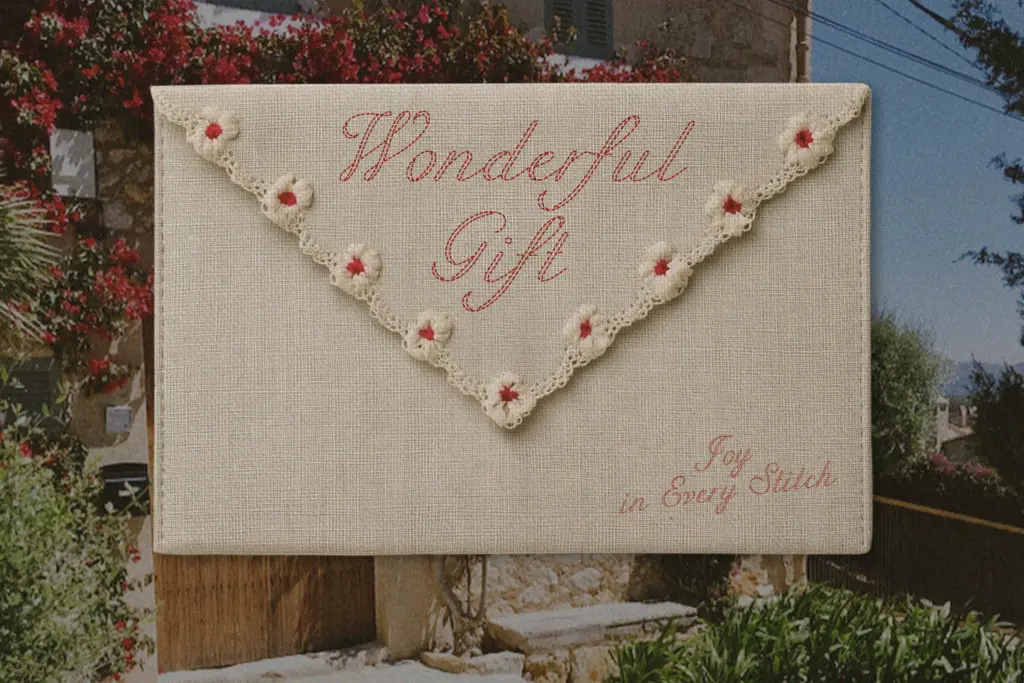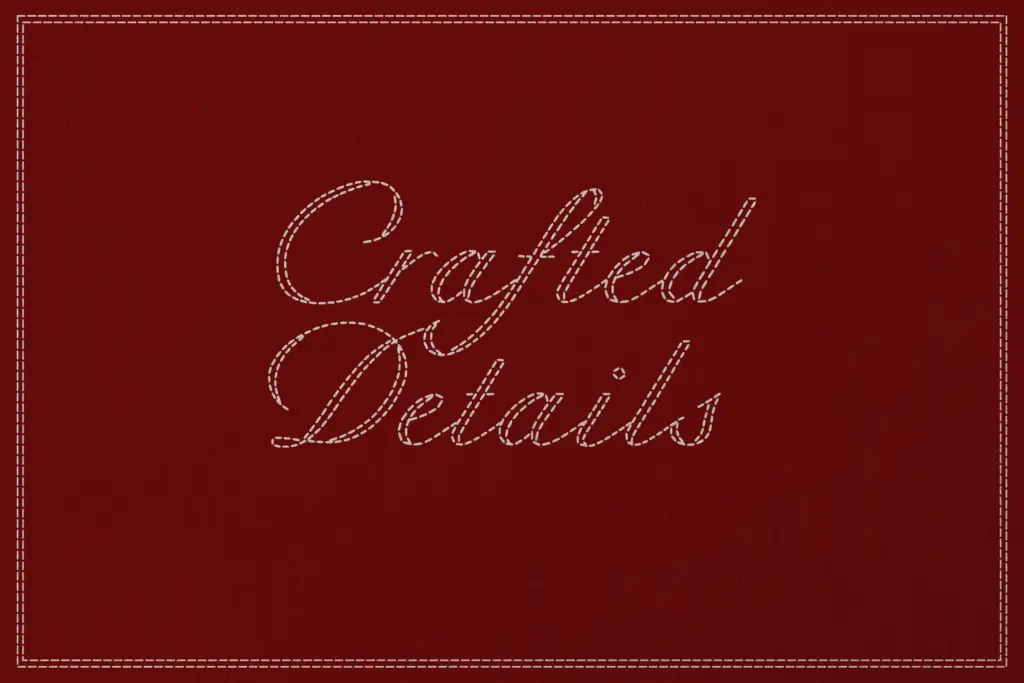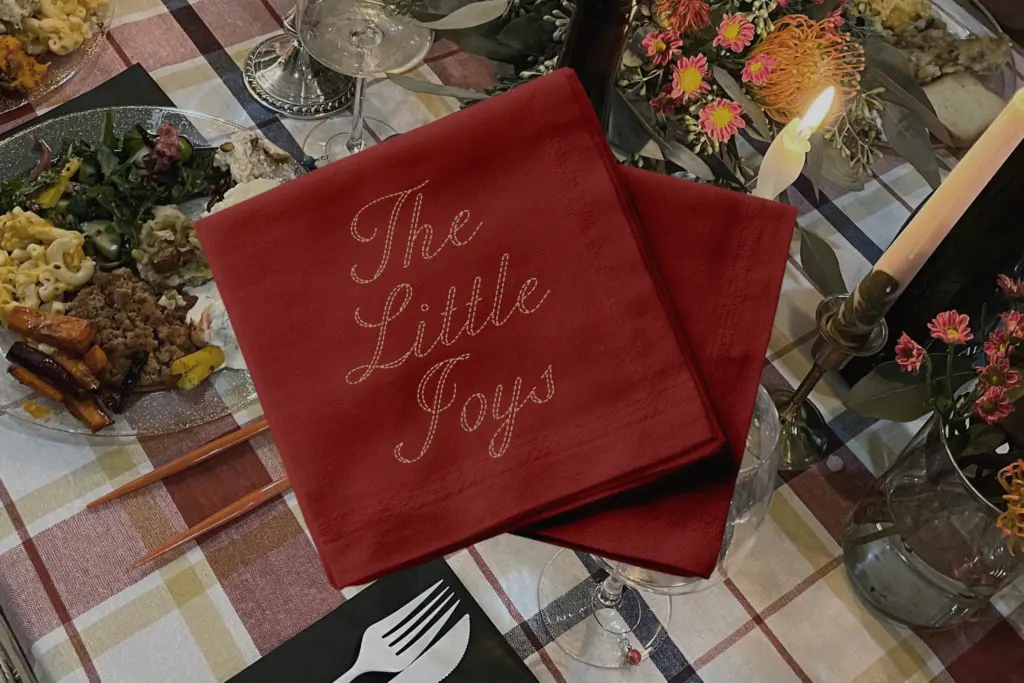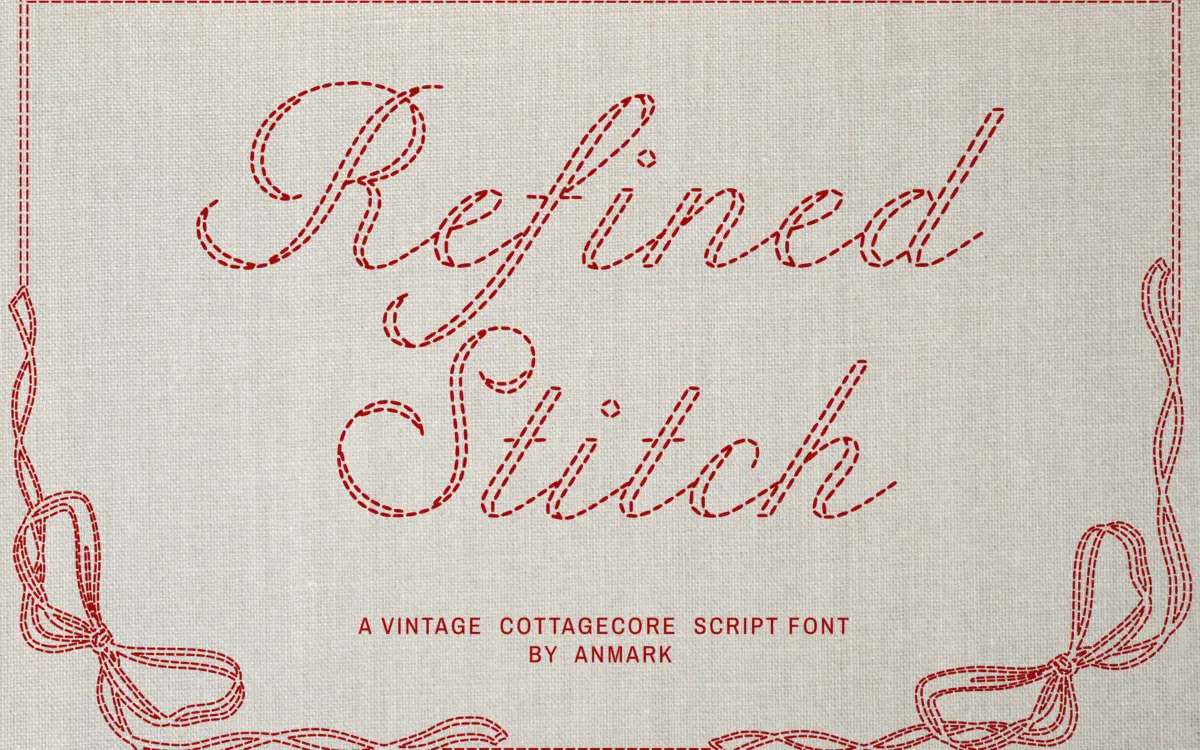
Refined Stitch is a script built around a single conceit: the letters look sewn rather than drawn. The strokes carry a broken, dashed texture that mimics thread pulled through fabric, and that texture is consistent across the alphabet rather than applied as a one-off flourish on a few showcase letters. The underlying skeleton is a fairly conventional connecting script — moderate slant, looping ascenders, narrow counters — but the stitch treatment changes how it reads at a glance. It feels closer to a label stamped on linen than to a pen-written signature.
The vintage label comes from the seller, and it fits loosely: there’s a handmade, atelier-tag quality to the letterforms, but it doesn’t lean on any particular decade’s script conventions. It’s better described as craft-adjacent than period-accurate. The stitching motif does the heavy lifting for character, and it’s effective as long as you don’t ask the font to also be a workhorse text face.
As a script, letters are designed to connect, and the stitched strokes carry through the joins without breaking the illusion — a detail that’s easy to get wrong in novelty scripts and worth noting when it’s done right. Ascenders and descenders have enough room to loop without colliding in tight line spacing, though because the stitch marks add visual weight, lines set close together start to look busy faster than a plain script would.
The brief doesn’t specify ligature sets, alternate letterforms, or swash variants, so treat the character set as a straightforward upper and lowercase script rather than a font with deep OpenType layering. If you need contextual alternates to break up repeated letter pairs, check the glyph list before committing a design around it — scripts without that feature can look mechanically repetitive in short repeated words like monogram initials.
At small sizes the stitching detail is the first thing to blur. This is a font that wants space: display sizes, short words, generous tracking. Push it down to body-copy scale or dense paragraph settings and the broken strokes stop reading as texture and start reading as noise.
This is squarely a display and accent script, and the seller’s own use list is realistic: wedding invitation headers, monogram lockups, product tags and packaging for handmade goods, social posts where a single line of type carries the design. Anywhere the word
- Stitch texture is applied consistently through joins rather than as a decorative afterthought
- Reads clearly as handmade/atelier without leaning on generic vintage script tropes
- Well suited to short-word display use — labels, monograms, invitation headers
- Legibility drops quickly at small sizes as the stitched strokes blur together
- No confirmed alternate or ligature set, so repeated letters in short words can look mechanical
Refined Stitch is a well-executed one-idea font: a connecting script rendered with a consistent stitched texture that suits handmade and bridal branding. It's not built for body text or dense layouts, and without a strong alternate-letter system it can repeat itself in short words, but for headline-scale packaging, labels, and invitation type it does exactly what it promises.